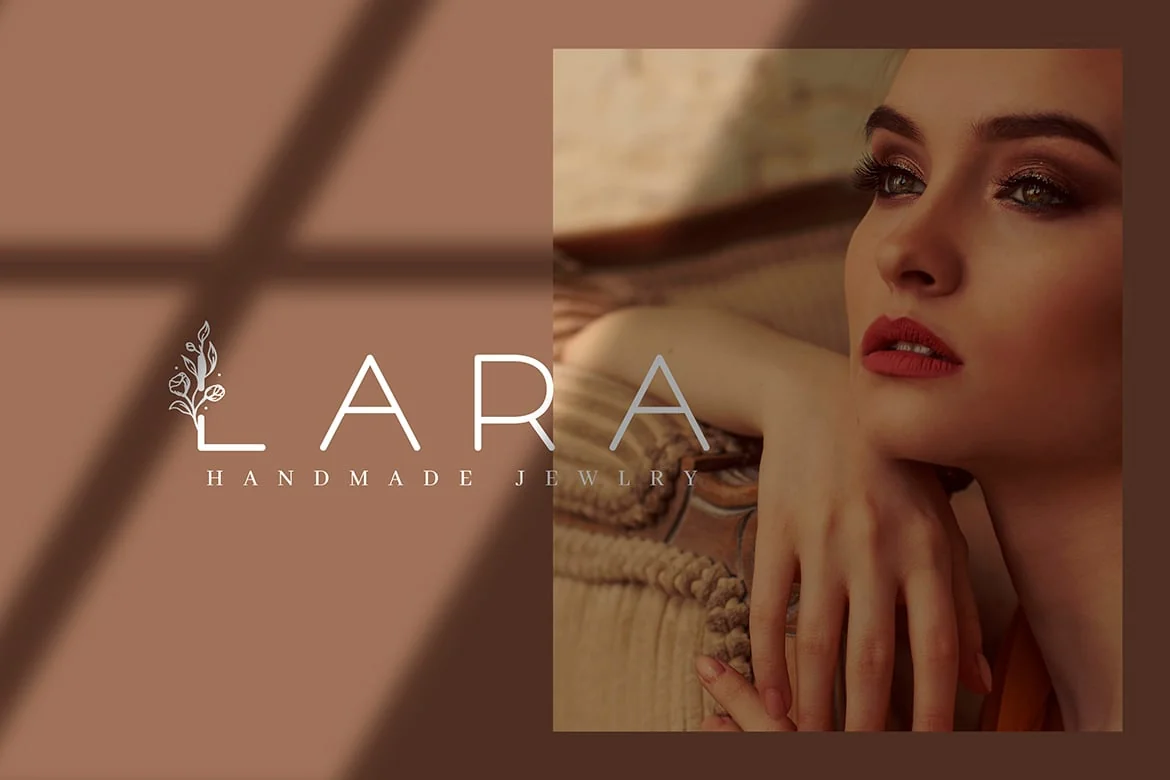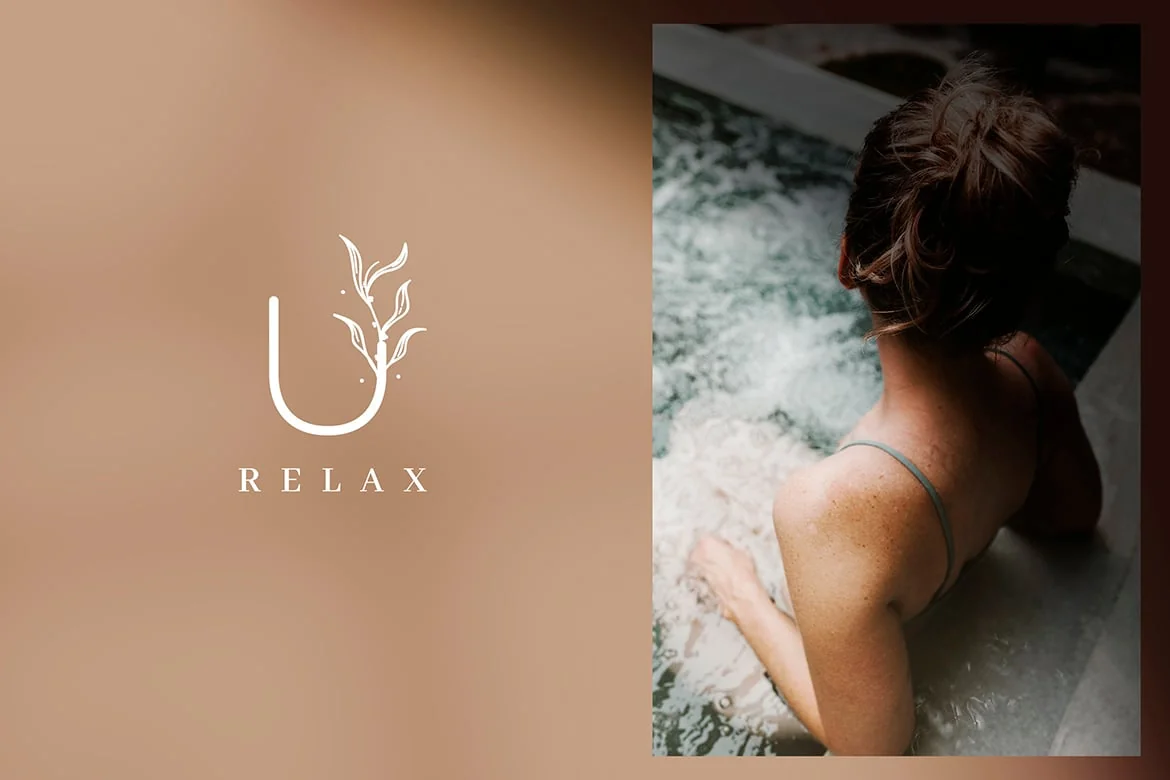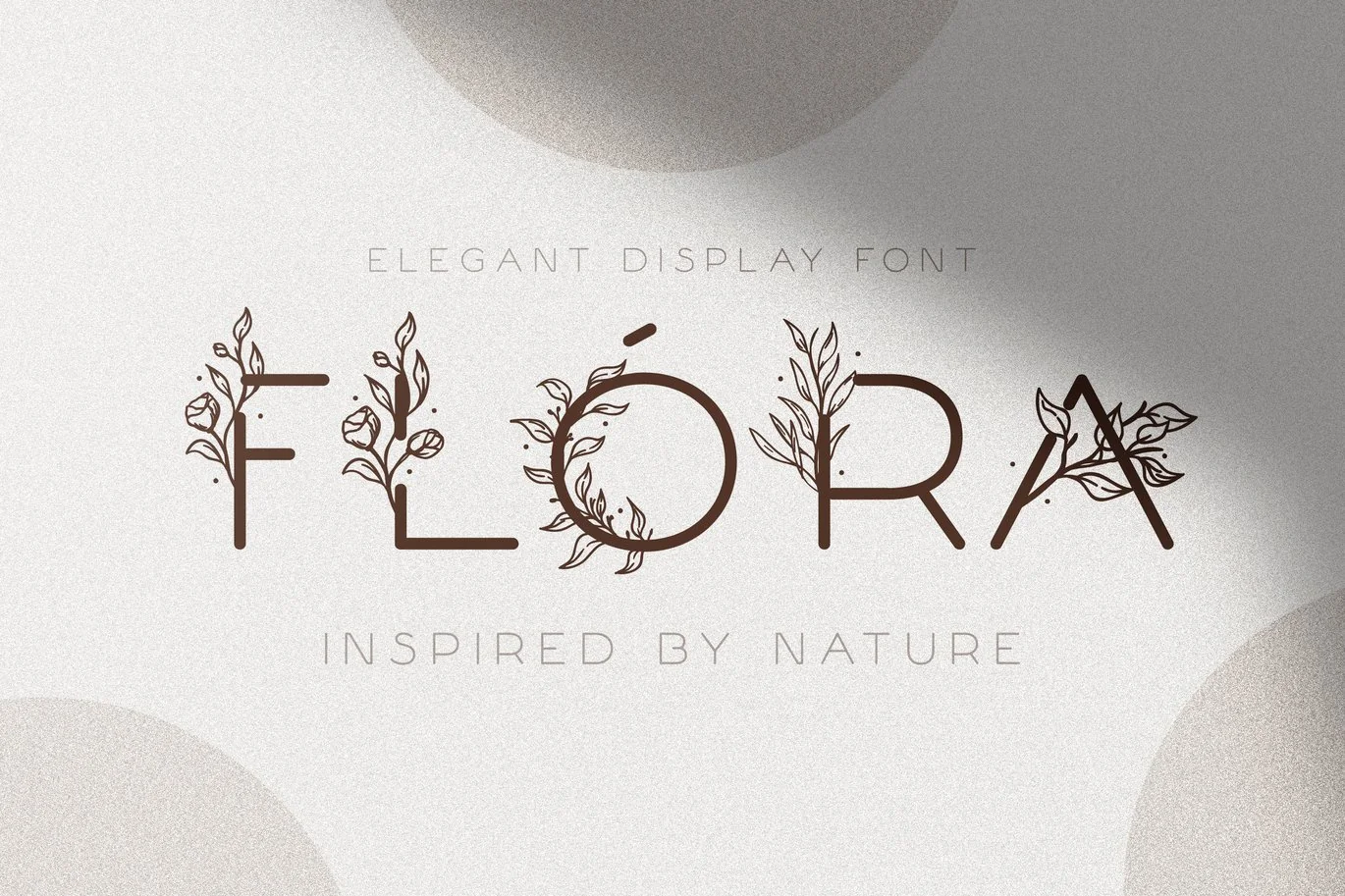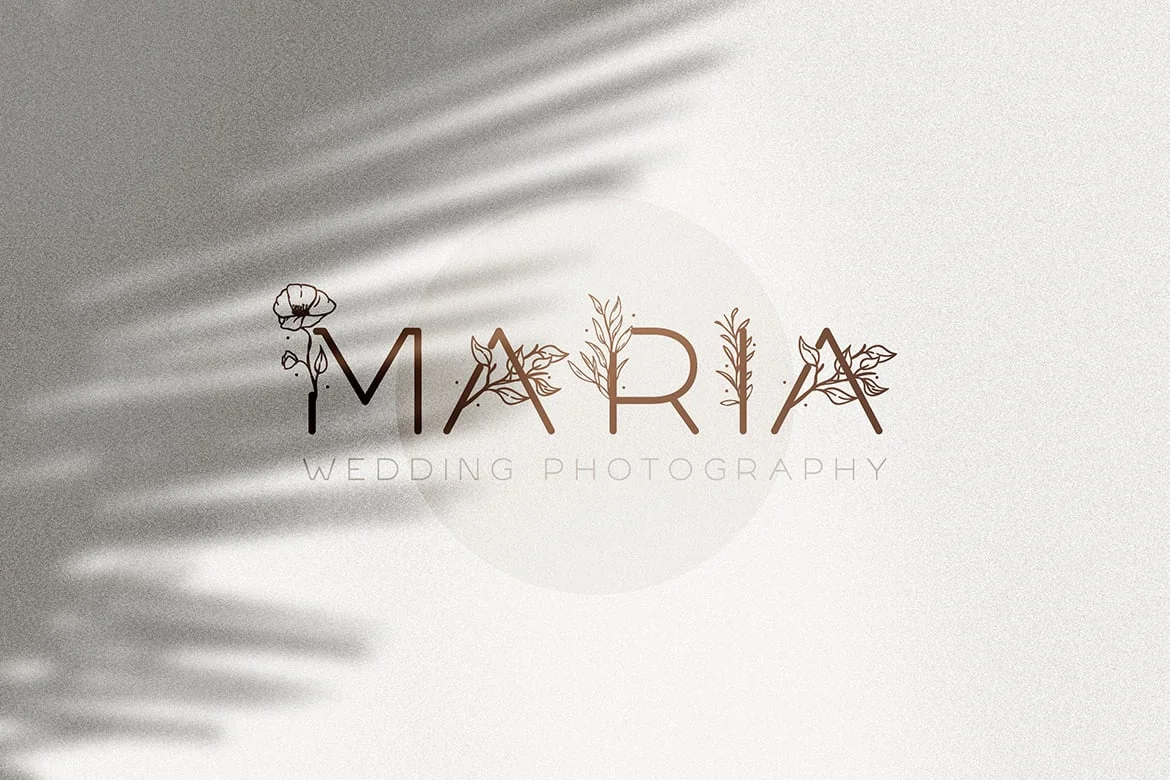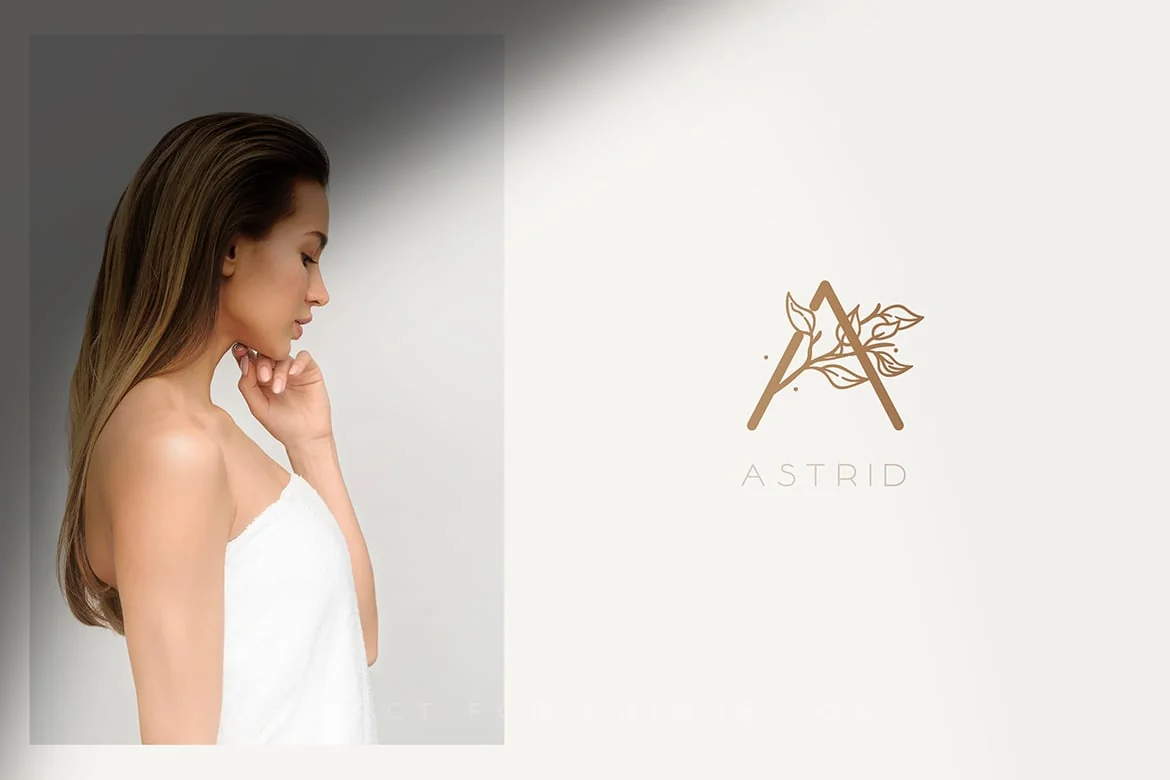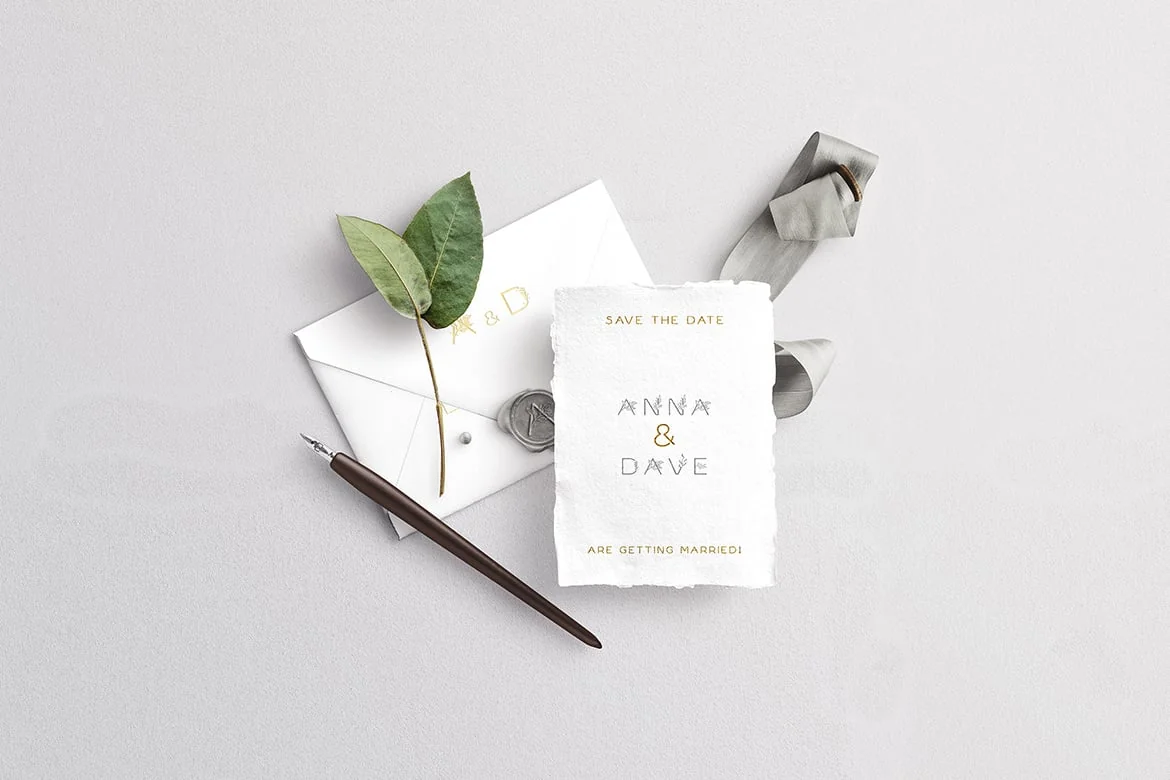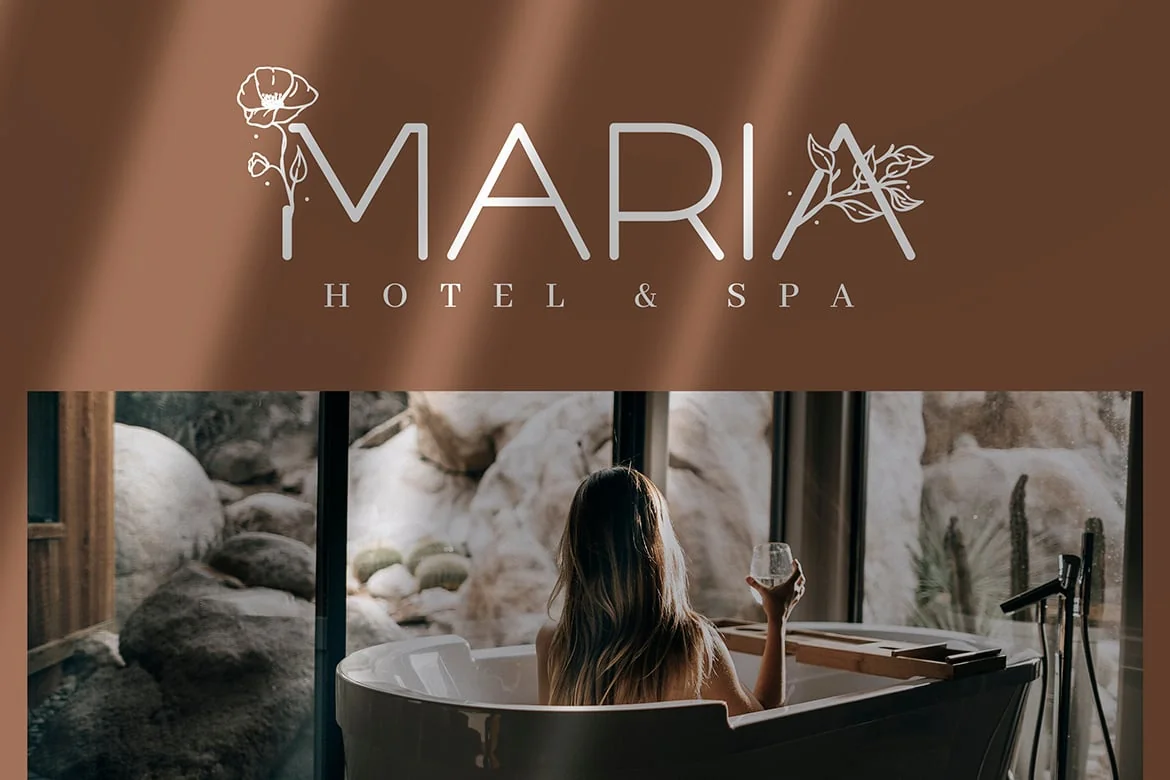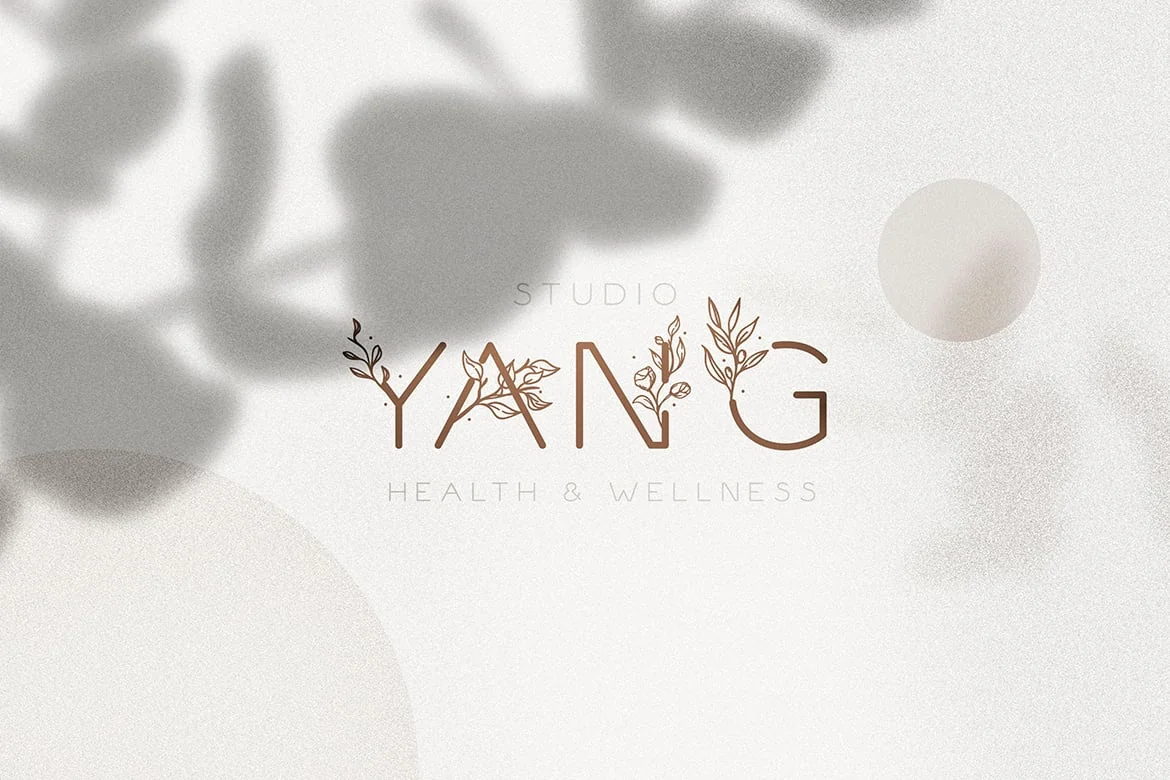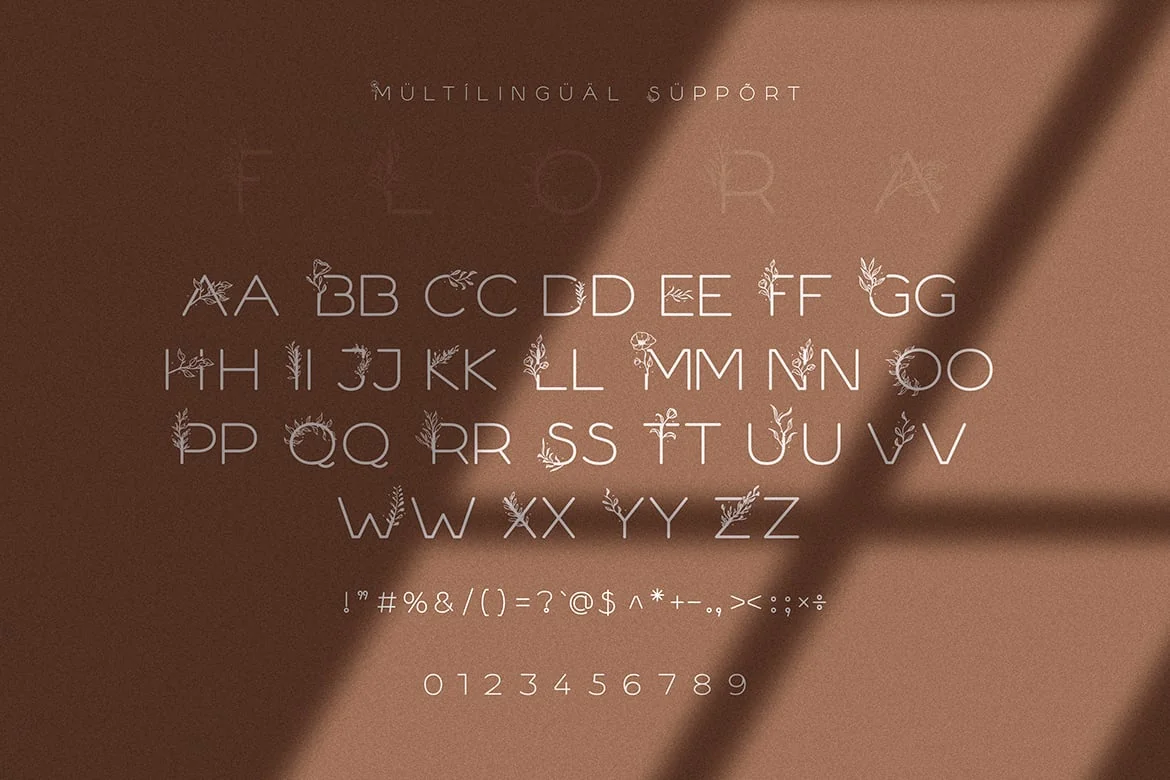
Flóra – A Delicate Floral Font
Introducing Flóra – A Delicate Floral Font with Flowers and Leaves
It’s an elegant and feminine font suitable for all kinds of headlines and decorative purpouses. It’s a perfect font for, all kinds of wedding stationary, invitations, natural logos, flower shops, packaging, social media posts and so much more!
The font also supports a basic set of multilingual glyphs.